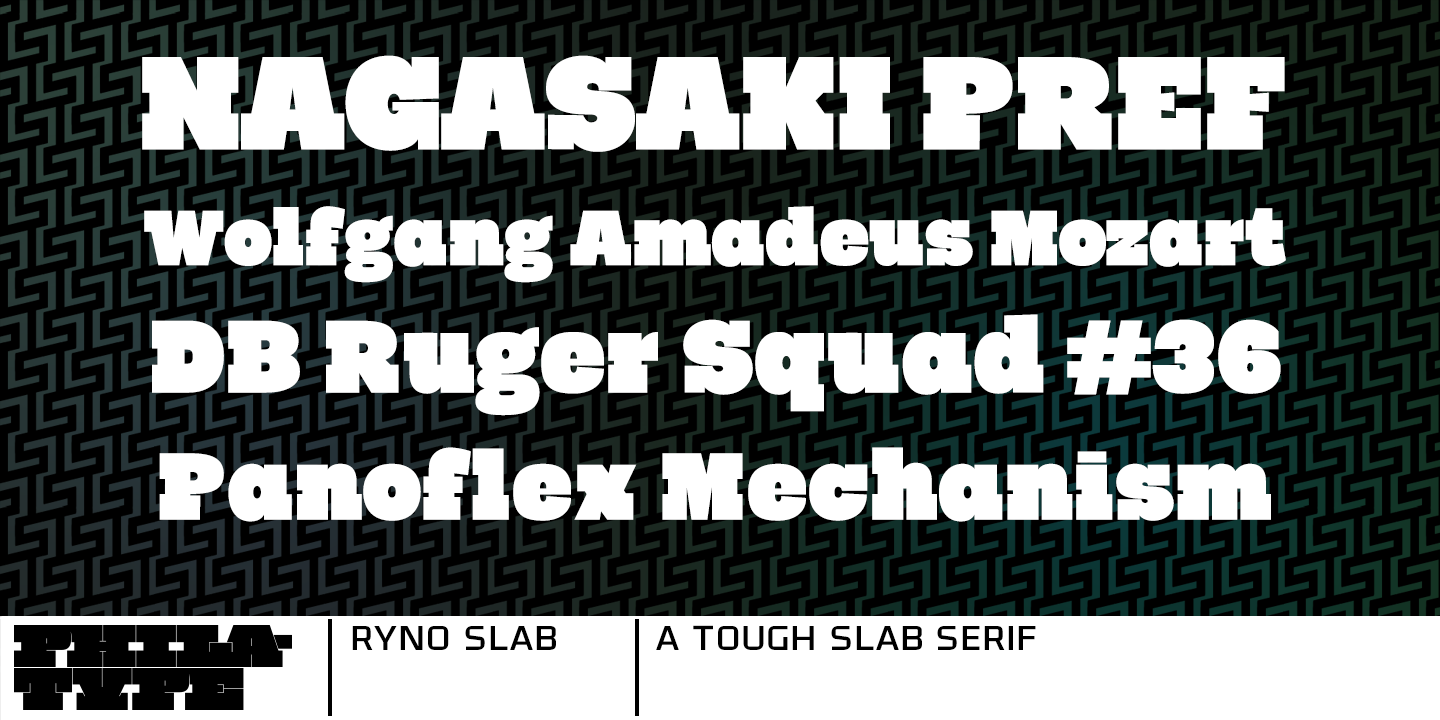
Ryno Slab Font is ideal for powerful corporate branding, industrial manufacturing signage, robust construction company materials, heavy machinery documentation, automotive service centers, professional trade publications, reliable business communications, sturdy product packaging, masculine grooming brands, and dependable service provider identities. This commanding typeface excels in applications where strength and reliability need to be communicated with industrial confidence and masculine authority that embodies the essence of robust craftsmanship and unwavering dependability in professional environments that demand proven performance.
What makes Ryno Slab Font exciting is its remarkable ability to project raw strength and industrial reliability through its boldly constructed letterforms that seem to be forged from steel and built to withstand the toughest professional challenges. The font embodies the spirit of industrial power with its robust construction and heavy-duty proportions that suggest the uncompromising strength of well-engineered machinery and the reliable performance of professional-grade equipment. Its powerfully crafted character details and masculine personality create an atmosphere of industrial confidence that resonates with professionals, contractors, and businesses who understand the value of strength, reliability, and proven performance in demanding work environments.
The Ryno Slab Font family typically includes Light, Regular, Medium, Bold, and Black weights, each maintaining the signature slab characteristics and industrial strength. Some versions offer condensed variants for space-efficient applications, extended styles for maximum impact, and alternative character sets with technical symbols and industrial notation. The family may also include specialized cuts optimized for heavy machinery documentation and display treatments designed for maximum visibility in industrial environments requiring authentic professional presence and reliable communication.
Whether you're creating industrial brand identities, manufacturing communications, or heavy-duty business materials, Ryno Slab Font Free Download delivers the uncompromising strength your robust projects demand. Its industrial character and masculine styling make it an invaluable tool for construction companies, manufacturing firms, and professional service providers working in heavy industry, industrial services, and masculine markets sectors where authentic strength and proven reliability are fundamental to establishing trust with clients who demand uncompromising quality and dependable performance in challenging professional environments.